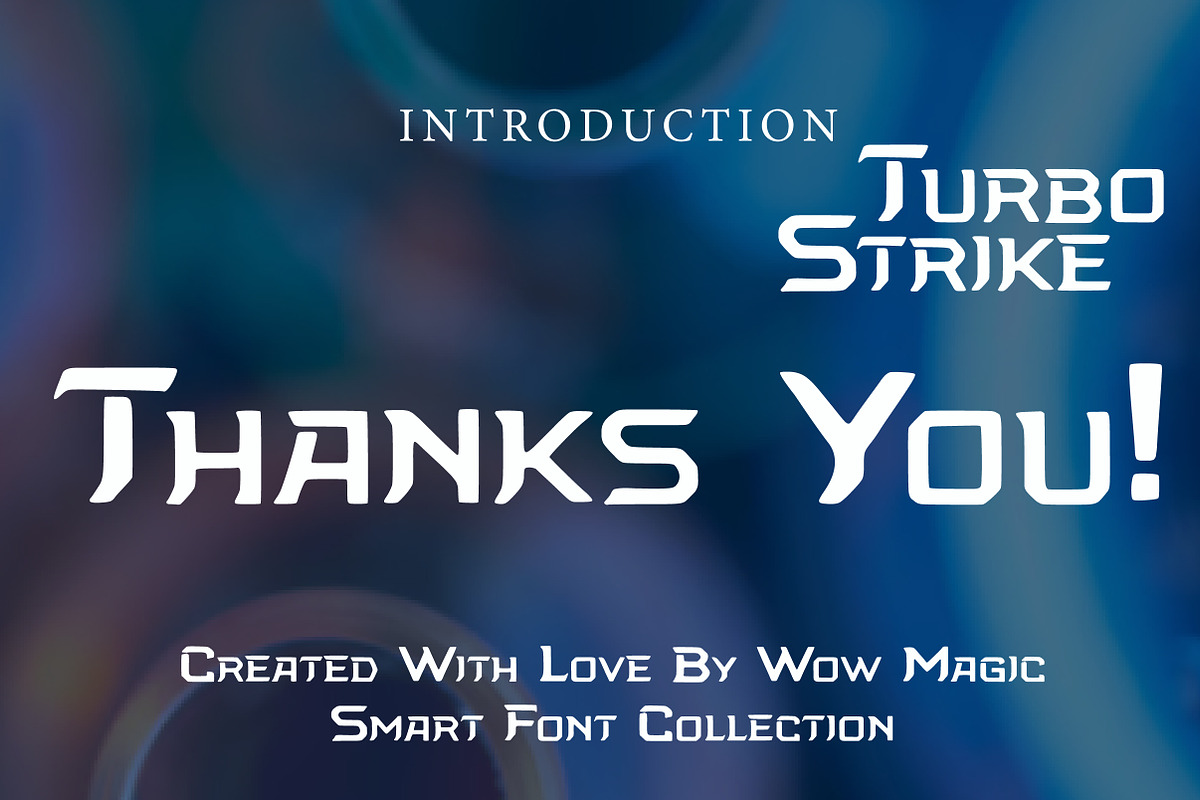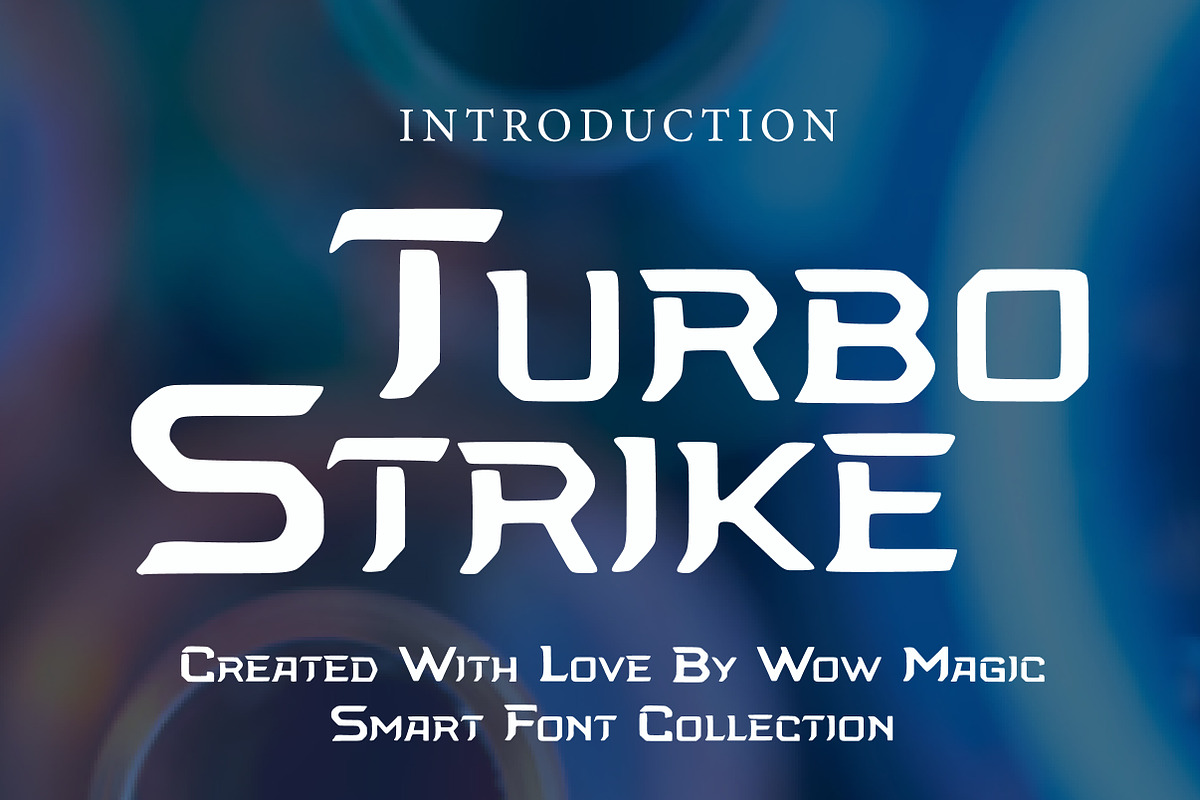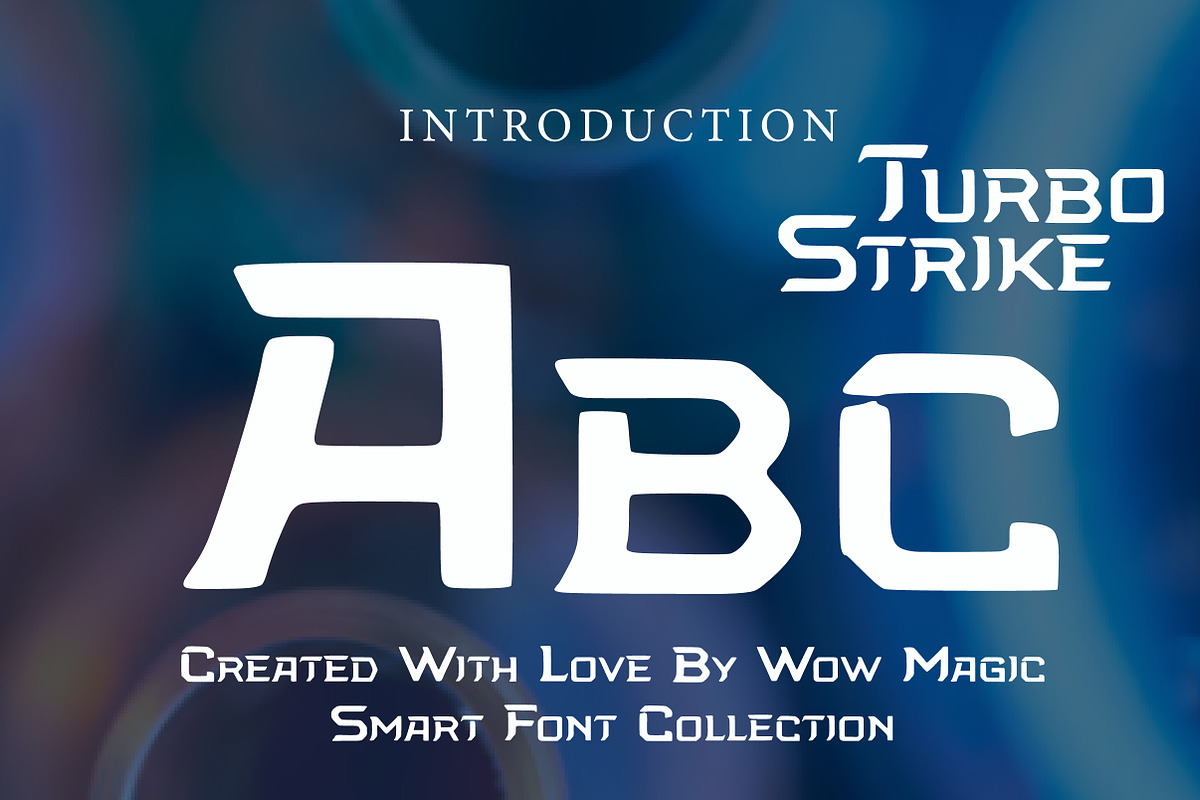
Turbo Strike
Turbo Strike is a bold futuristic display font built for speed, power, and high-impact visual energy. Featuring sharp angular cuts, extended strokes, and a dynamic techno structure, this typeface delivers a strong racing-inspired aesthetic with a sleek sci-fi edge.
Its aggressive letterforms and streamlined proportions make it perfect for esports branding, gaming titles, automotive graphics, posters, logos, tech products, YouTube thumbnails, and action-driven headline designs. The modern geometric construction gives it a fast-moving identity that feels competitive, digital, and innovative.
Turbo Strike is ideal for designers who want a font that looks powerful, energetic, and ready to perform. Whether you are creating a racing poster, gaming logo, or futuristic brand concept, this typeface adds motion, intensity, and bold character to any composition.
Esports Branding
Racing Graphics
Gaming Titles
Tech Logos
Posters & Flyers
YouTube Thumbnails
Sci-Fi Projects
Bold Headline Designs